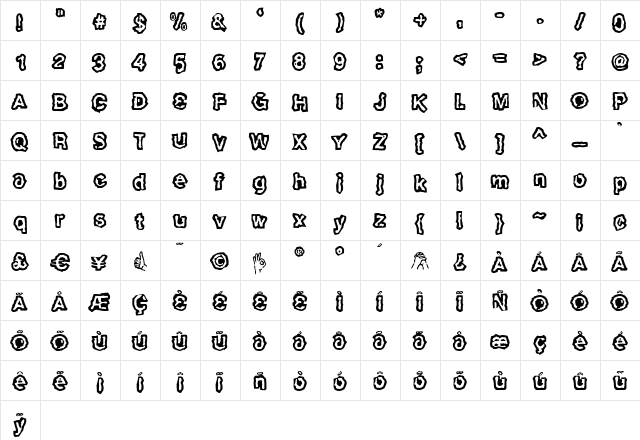
SlackhappyOutline Medium
Design Context for SlackhappyOutline Typeface
SlackhappyOutline brings ornamental detail and strong personality to headlines and identities, where visual impact matters more than quiet functionality.
Font Pairing: Pair with a clean neutral sans-serif for body copy to let SlackhappyOutline's character lead without overwhelming the composition.
Pro Tip: Treat SlackhappyOutline as the centrepiece of your typographic hierarchy. One strong heading set in a decorative face can carry an entire layout.